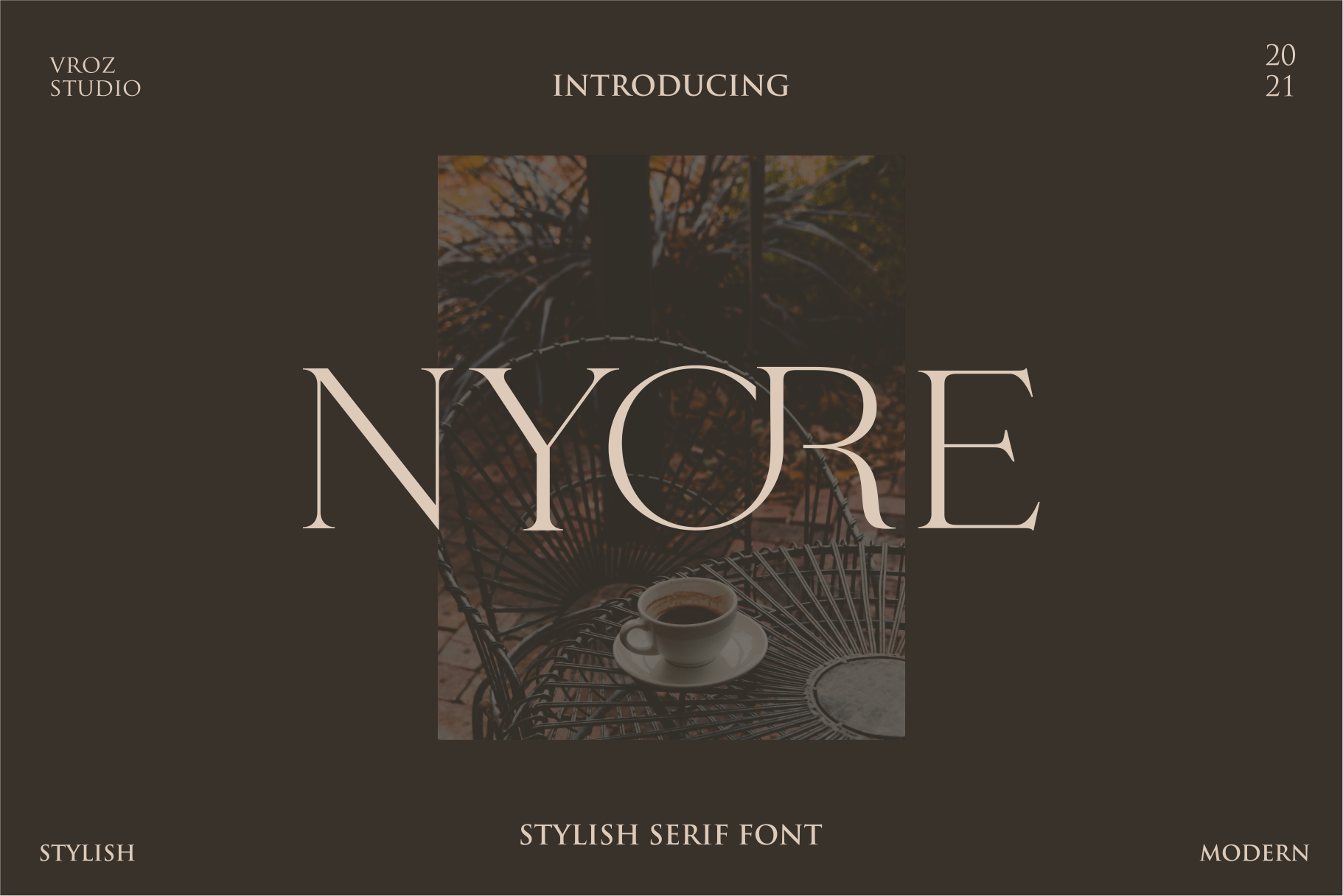
NYORE - Stylish Serif Font
NYORE is a modern stylish serif font
NYORE will perfect for many project: fashion, magazines, logo, branding, photography, invitations, wedding invitation, quotes, blog header, poster, advertisements, postcard, book, websites, etc.
if you want to enter stylish OR letters, you can press the ( ~ ) icon on your keyboard